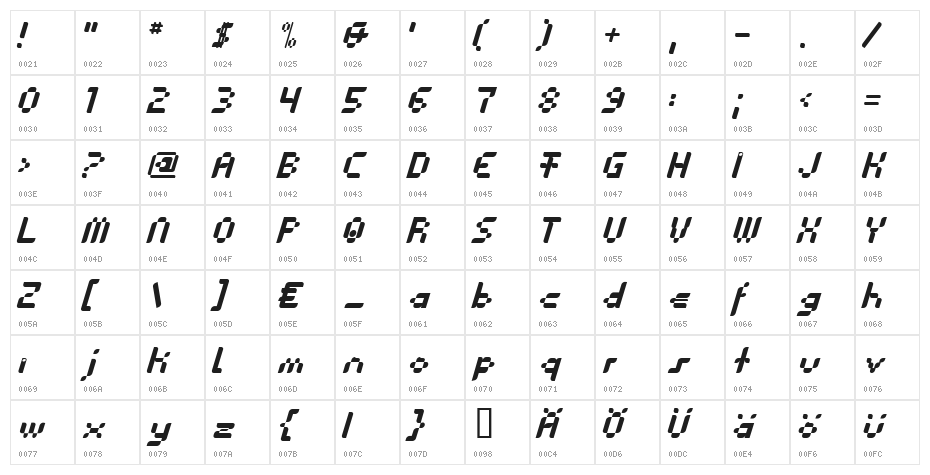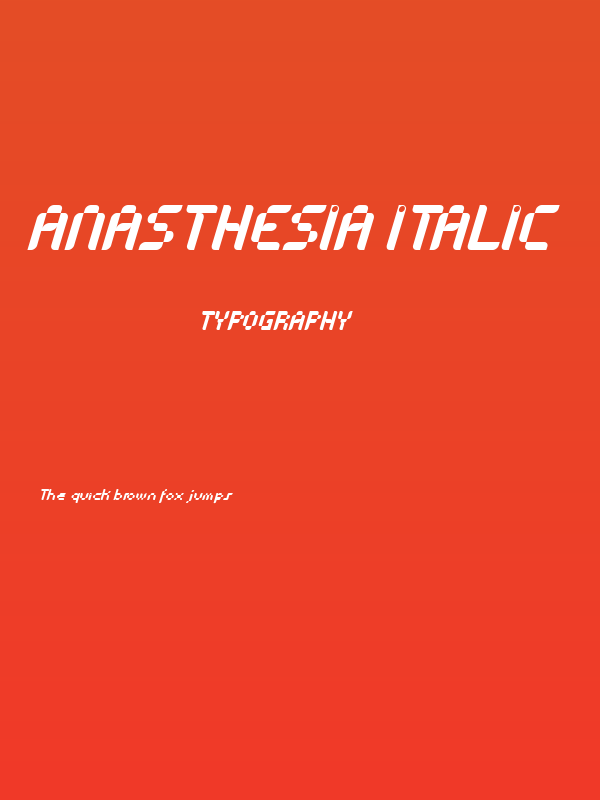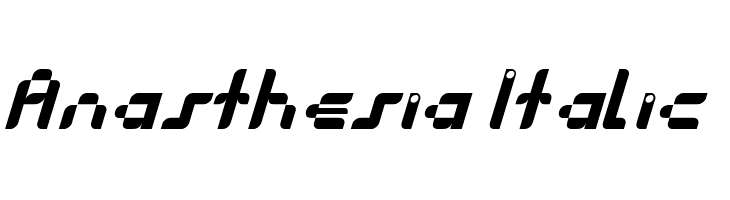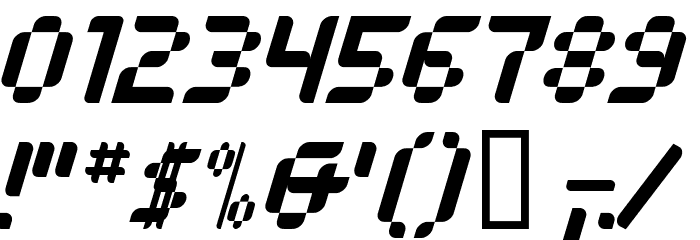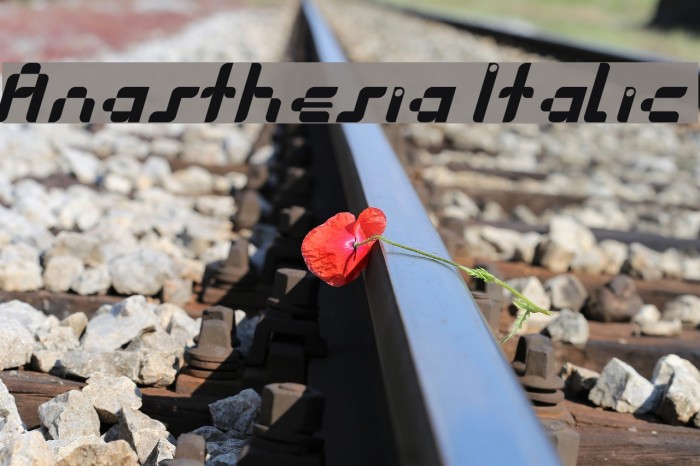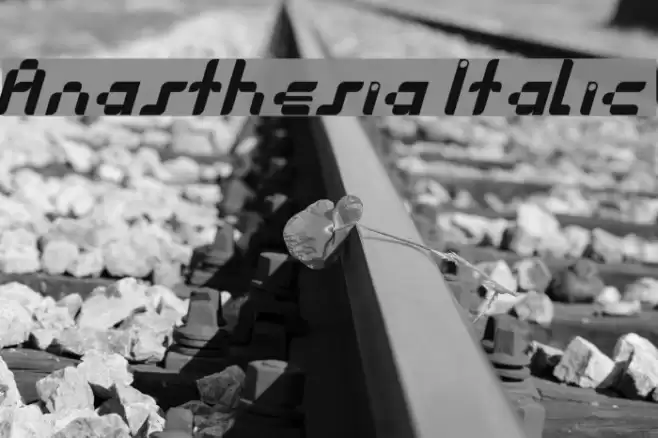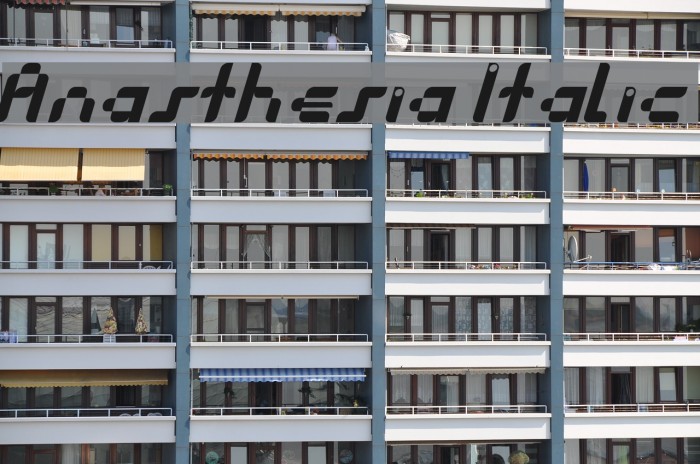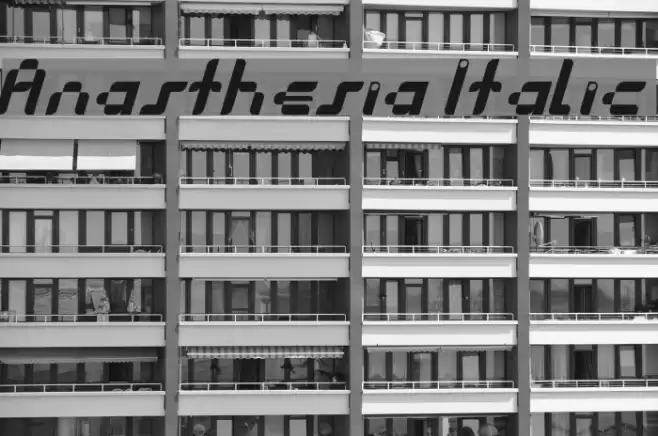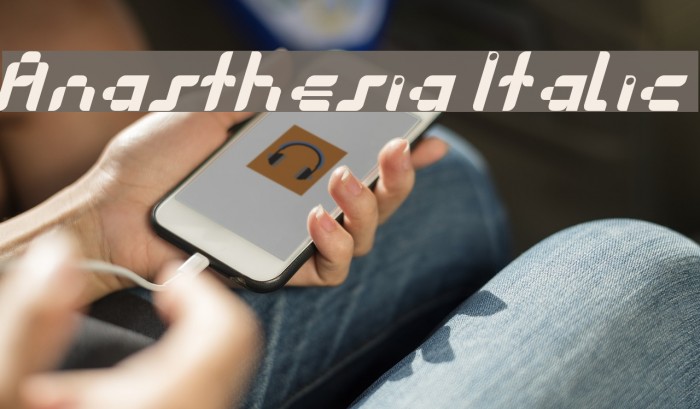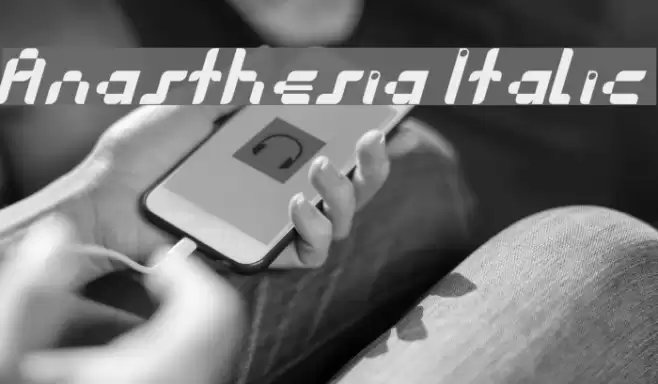
Anasthesia Italic Font
Anasthesia Italic Description
This font features a modern, italicized style with a unique, futuristic appearance. The characters are composed of bold, angular lines with rounded edges, giving it a dynamic and sleek look. The uppercase and lowercase letters maintain a consistent slant, enhancing the italic effect. Numbers and special characters follow the same design principles, ensuring uniformity across the font. The overall design is striking and eye-catching, suitable for projects that require a contemporary and innovative touch.
| Overall Style | Futuristic, Modern |
| Proposed Projects | Ideal for technology branding, sci-fi themed designs, modern posters, and digital media. |